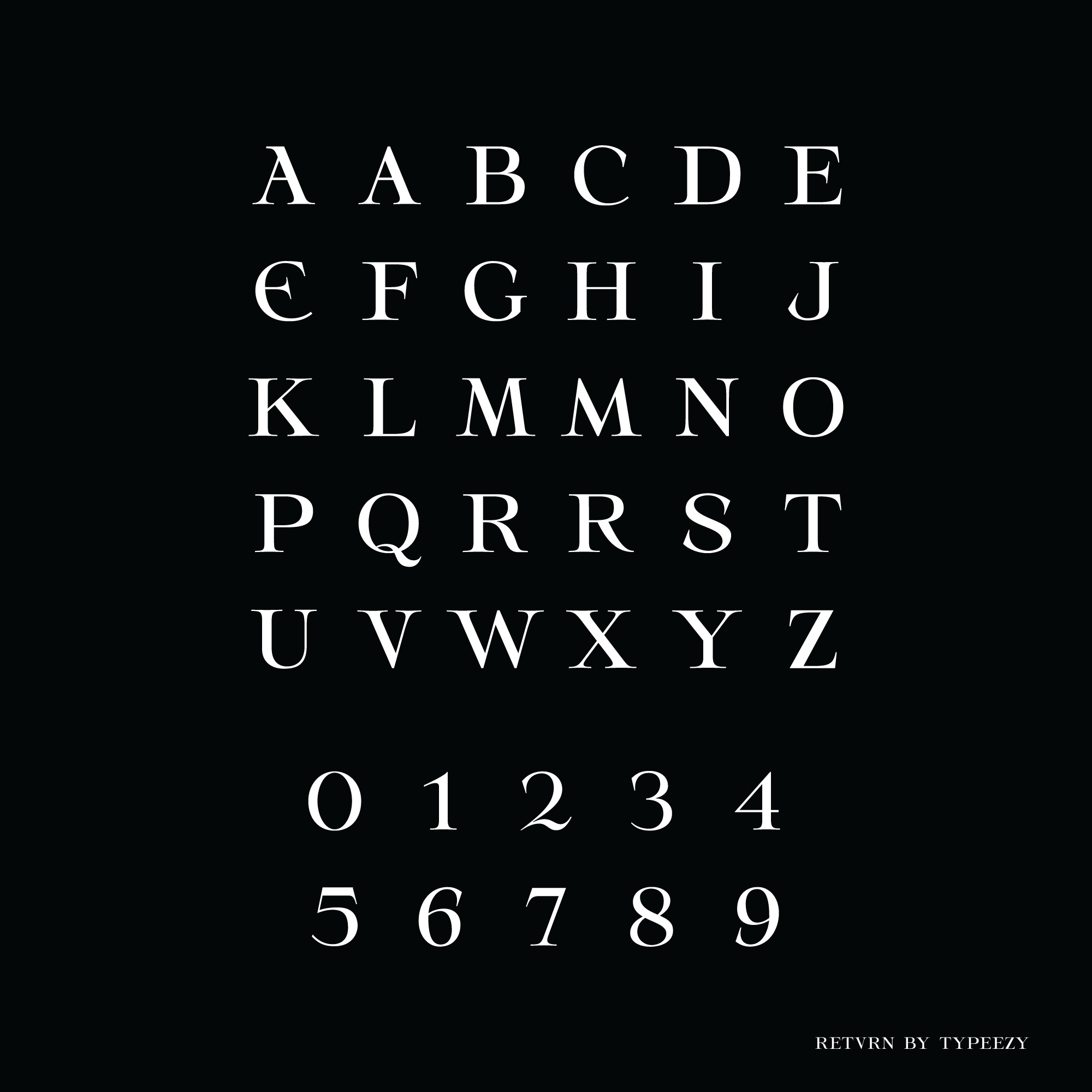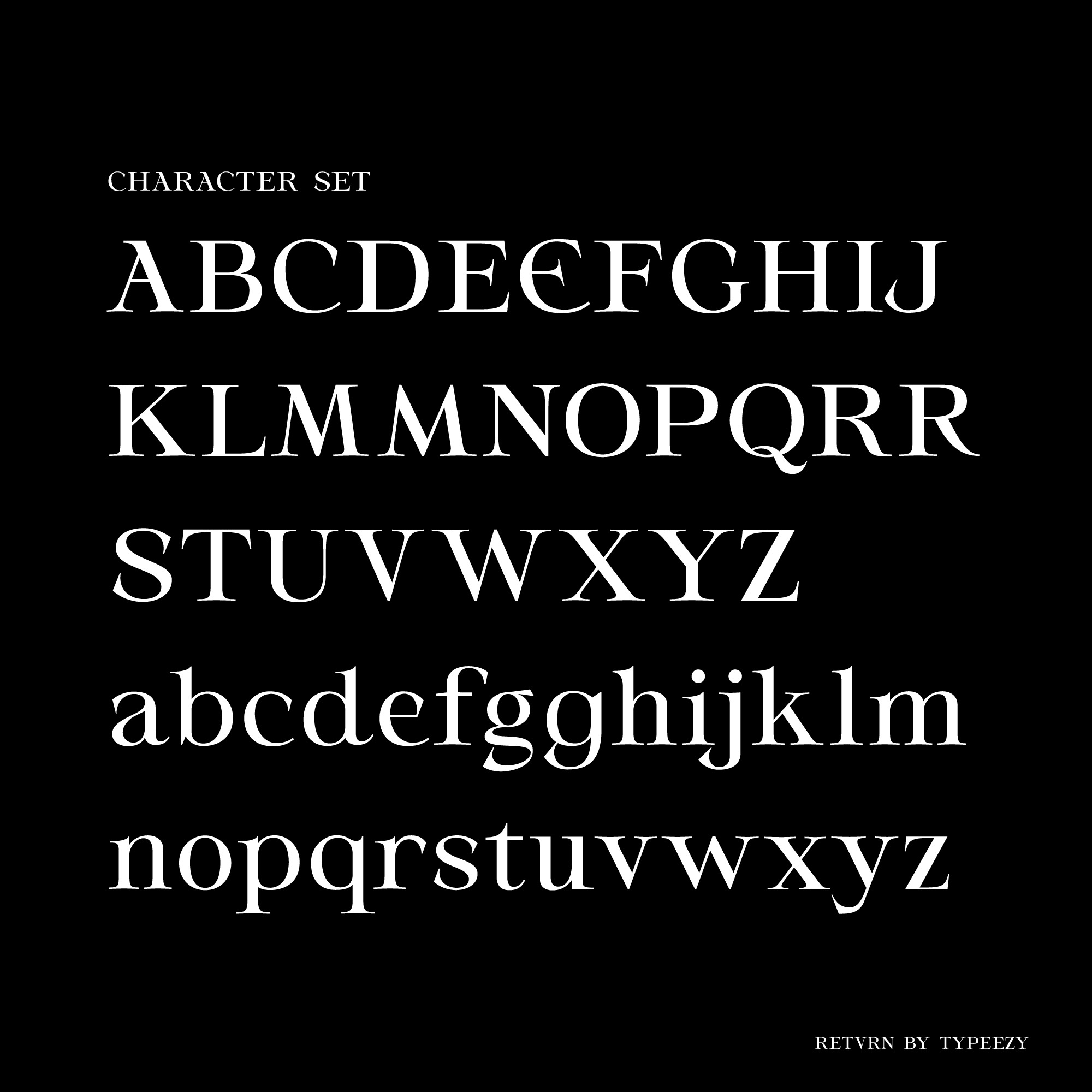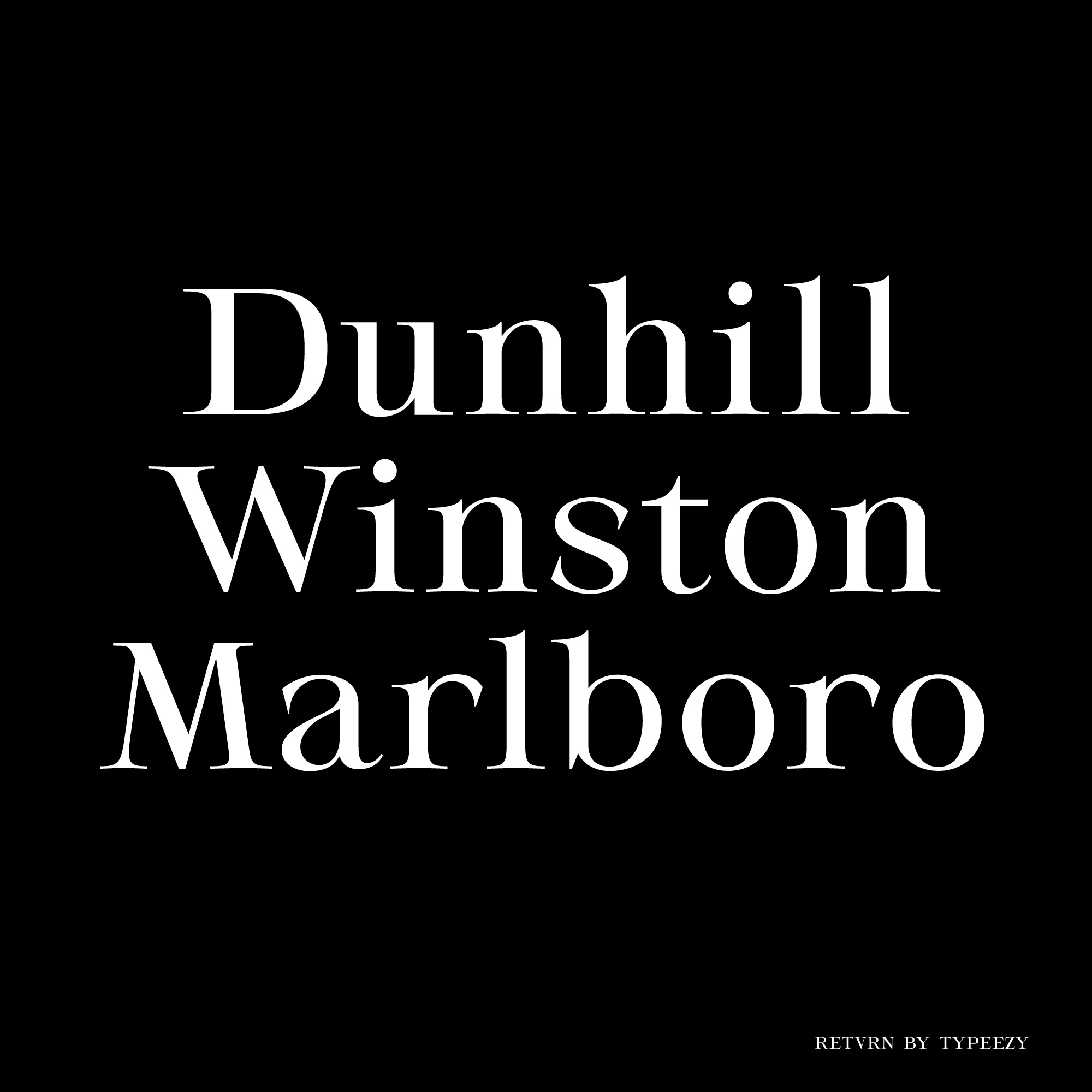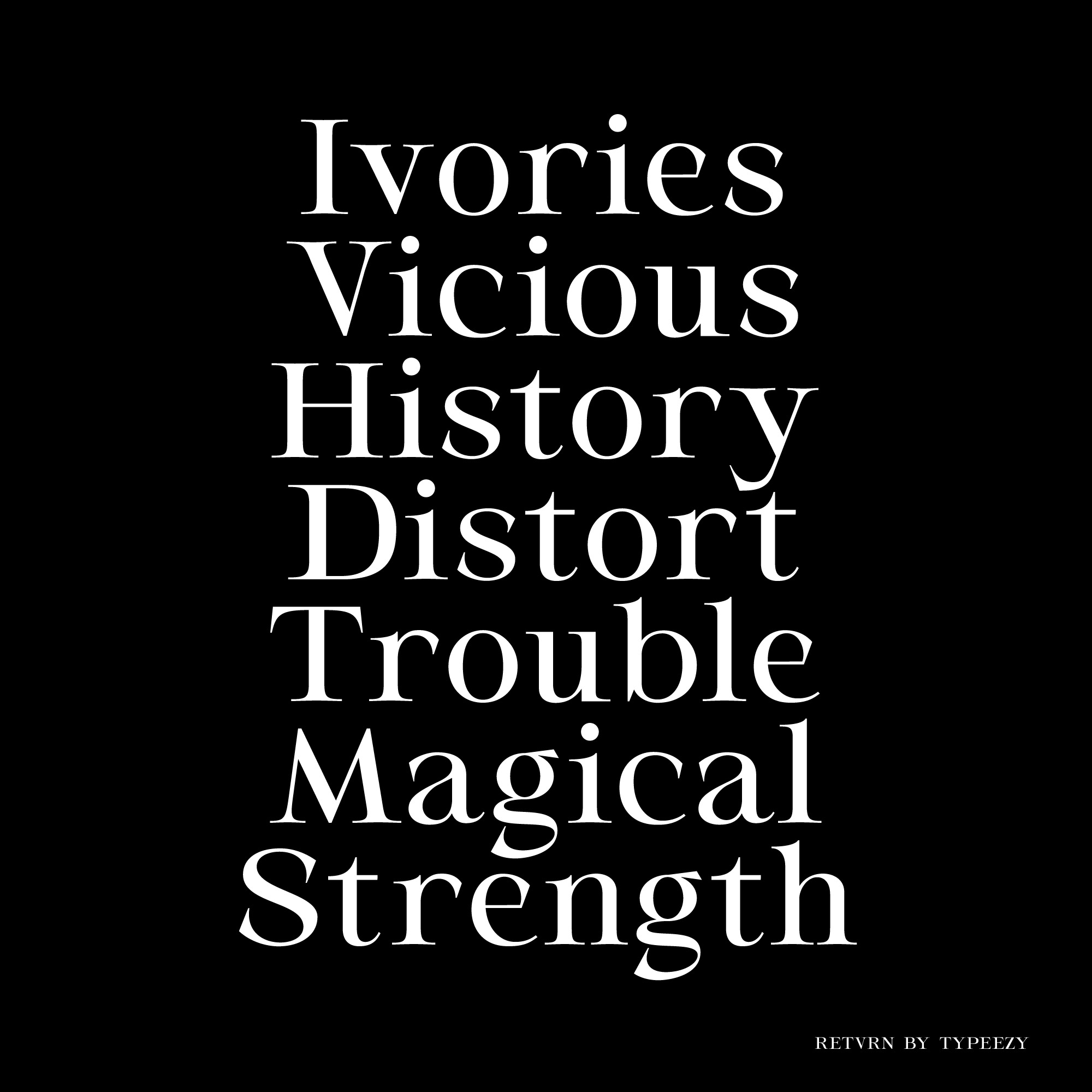
RETVRN Font
RETVRN Serif Font
This is a beautiful elegant serif font, with curves and lines that so strong that makes this font look bold and stand out. This font is suitable for many projects, for modern or even retro vintage design, branding, crafting, sticker, sublimation, wedding invitation, advertising, vintage mood boards, logotype, packaging, titles, editorial design, and many more.